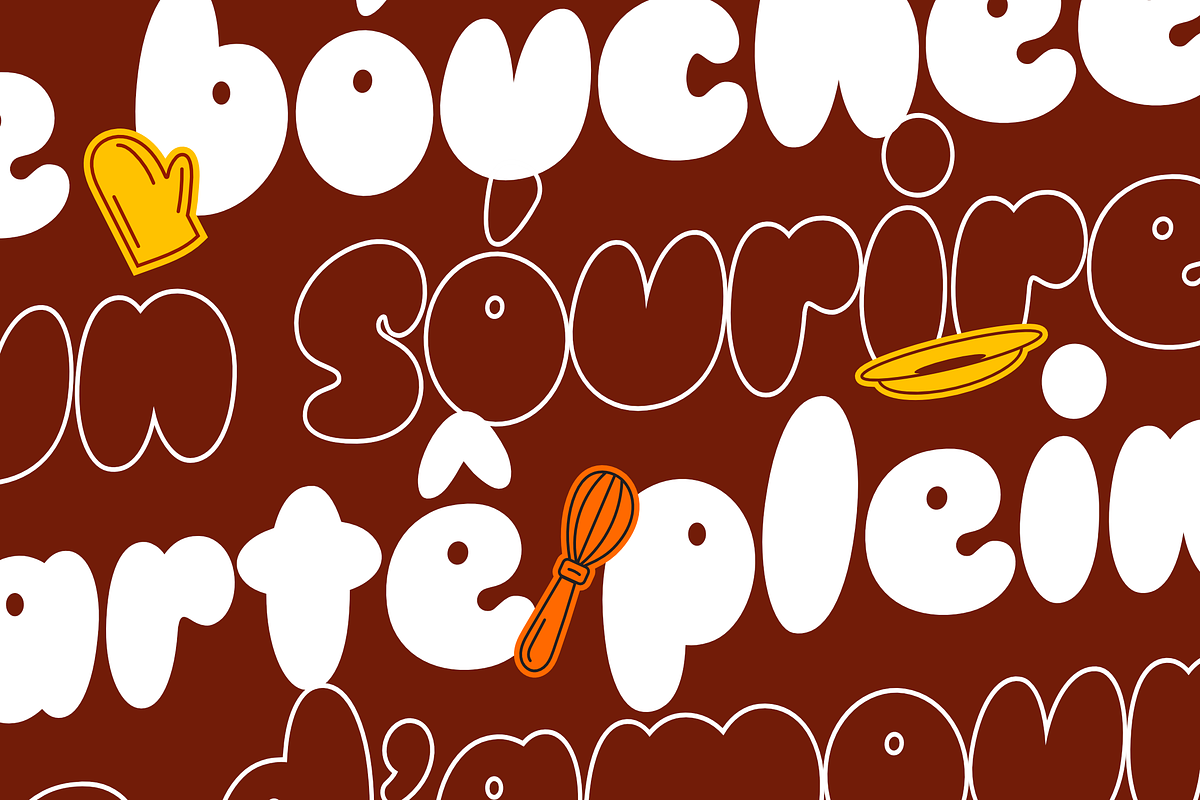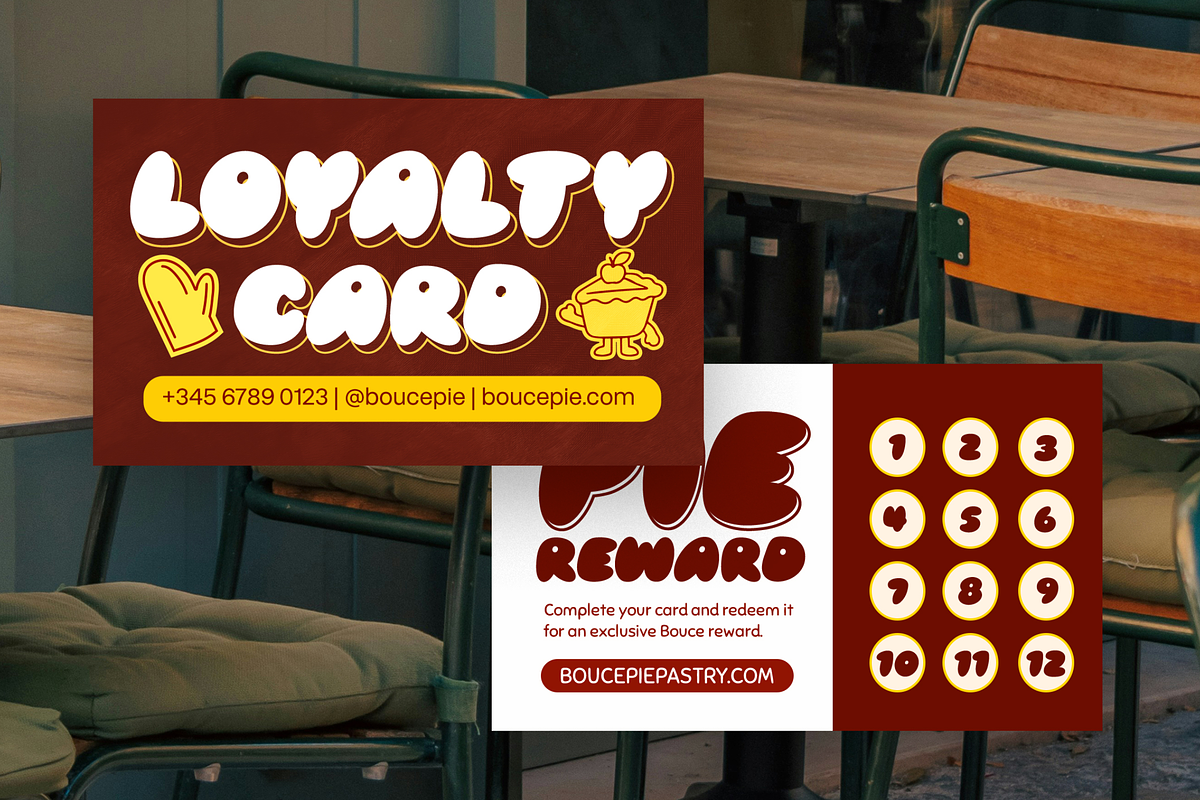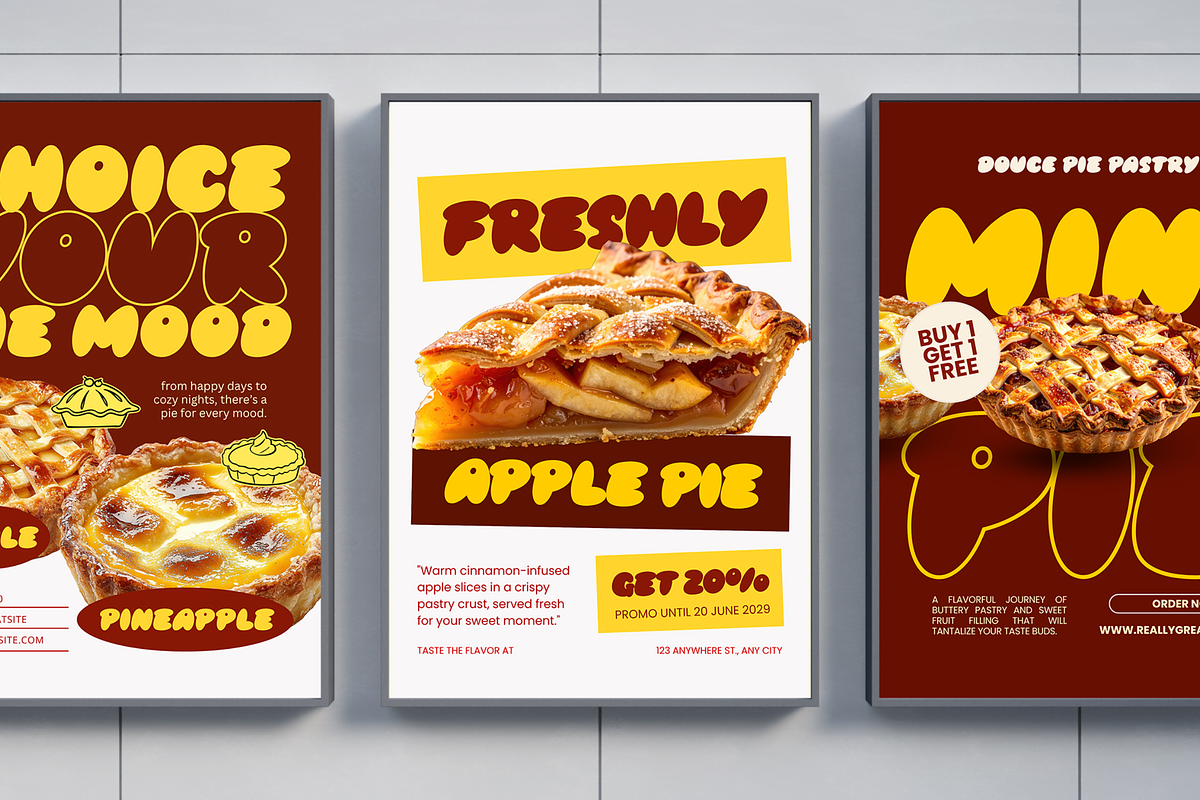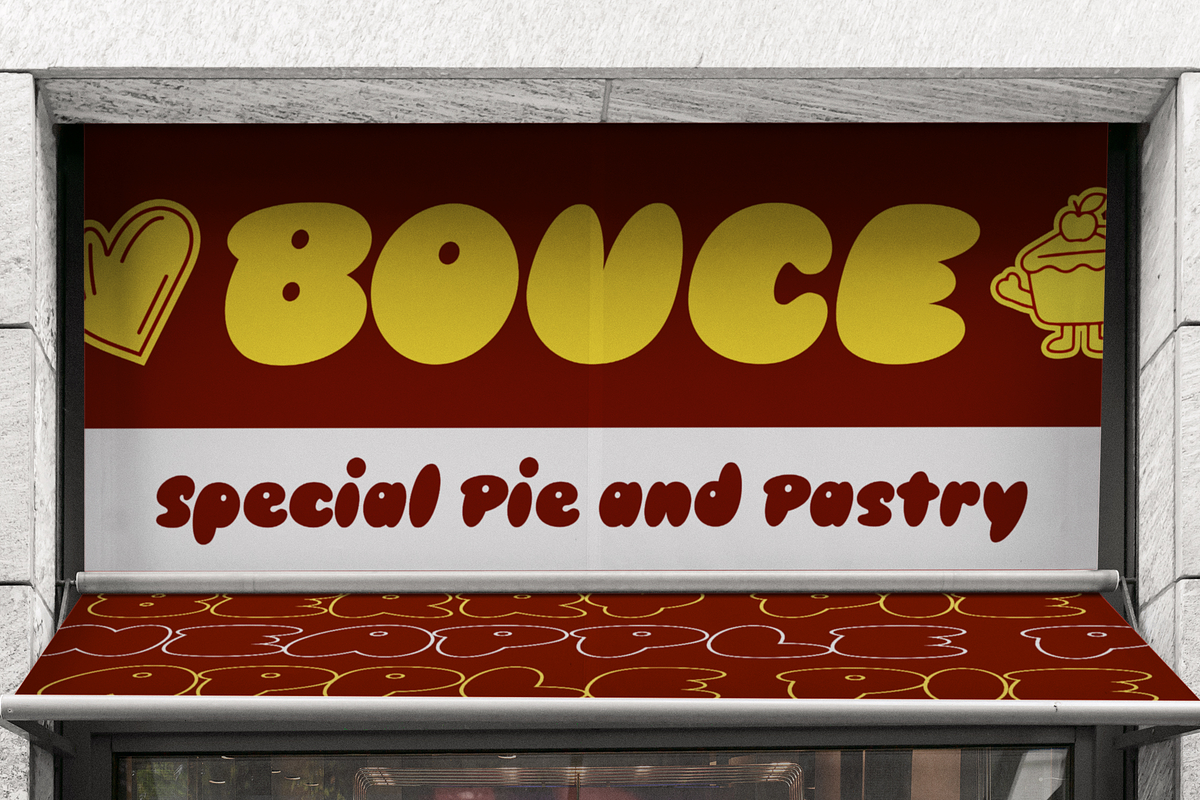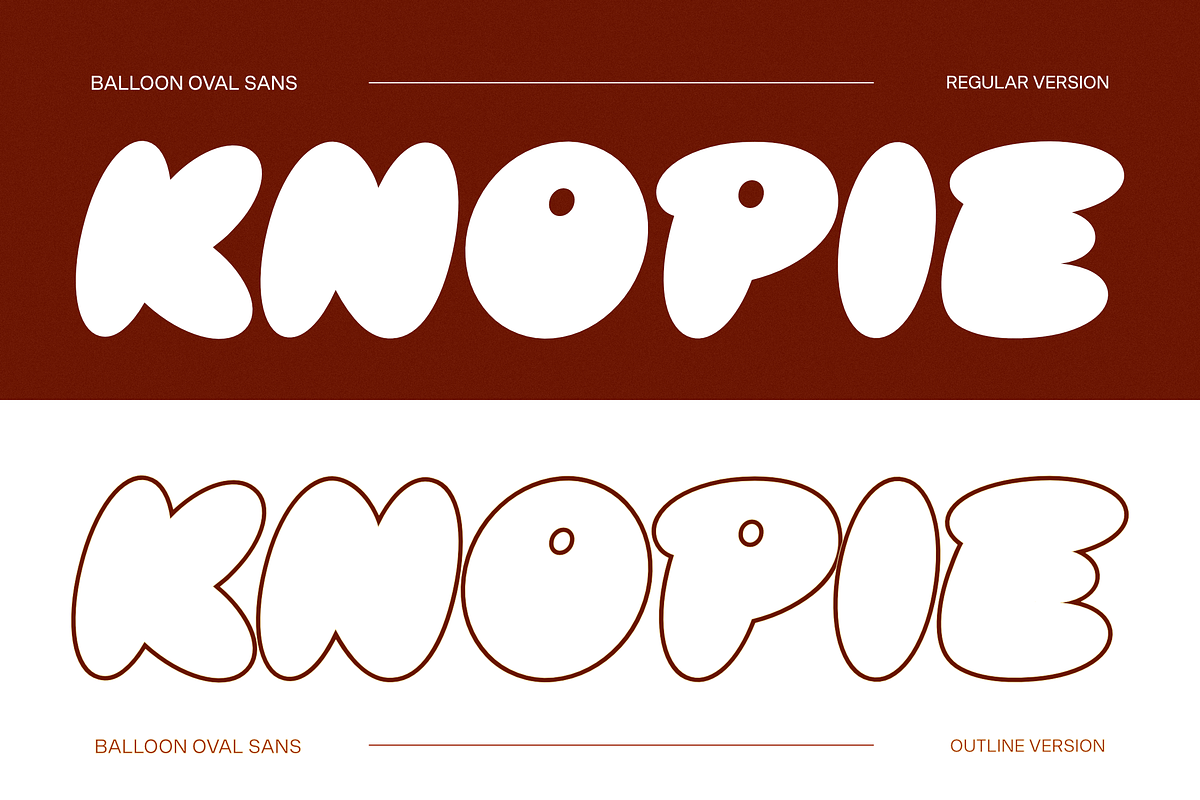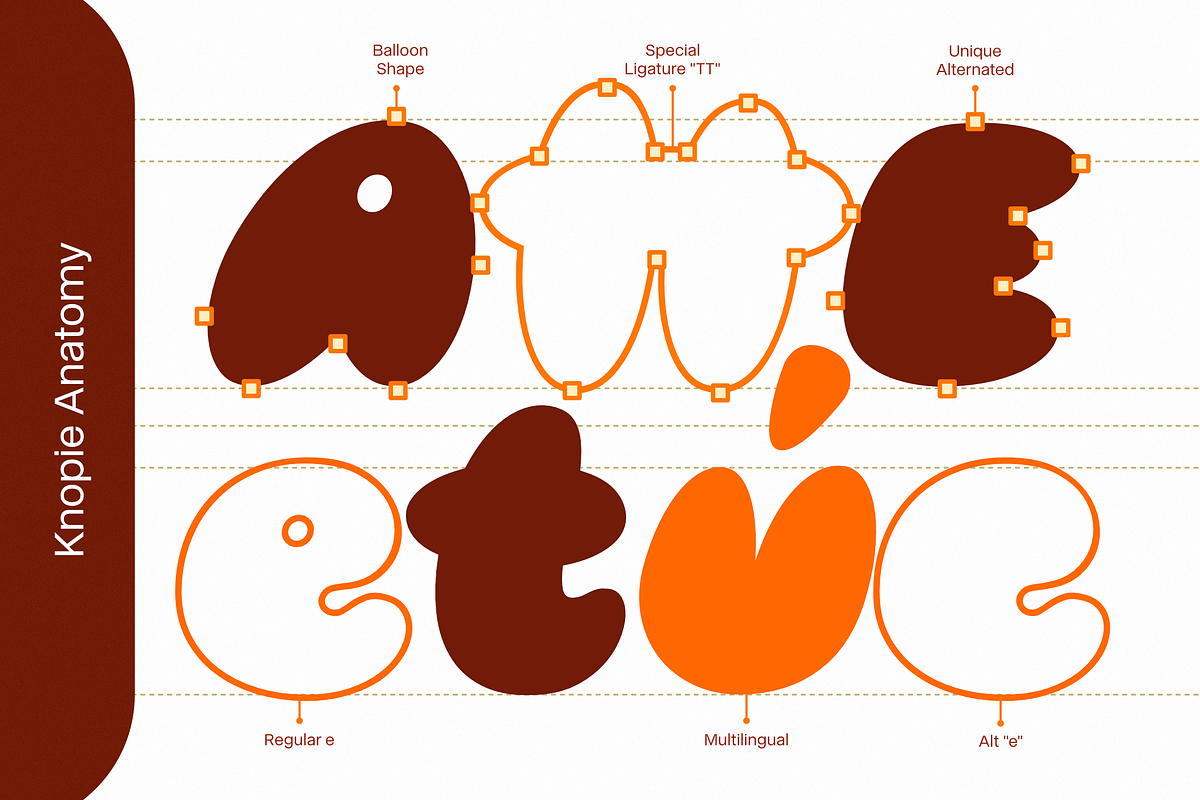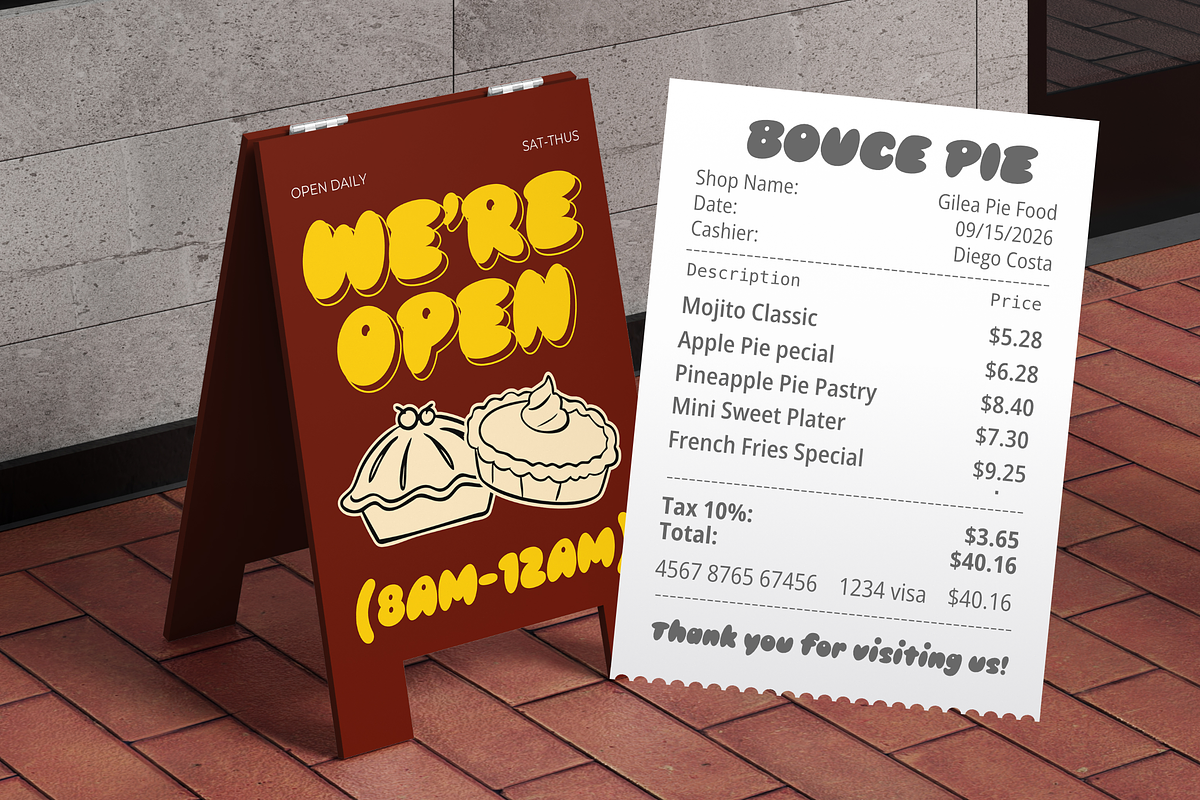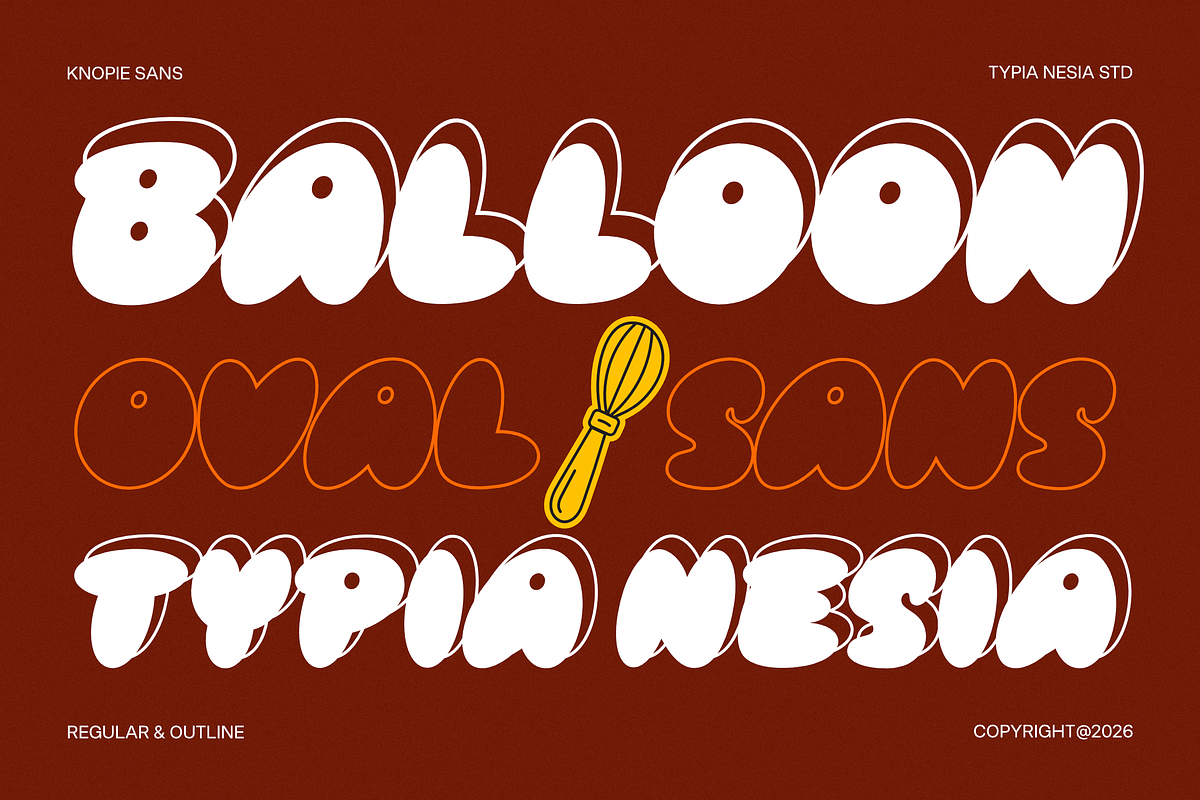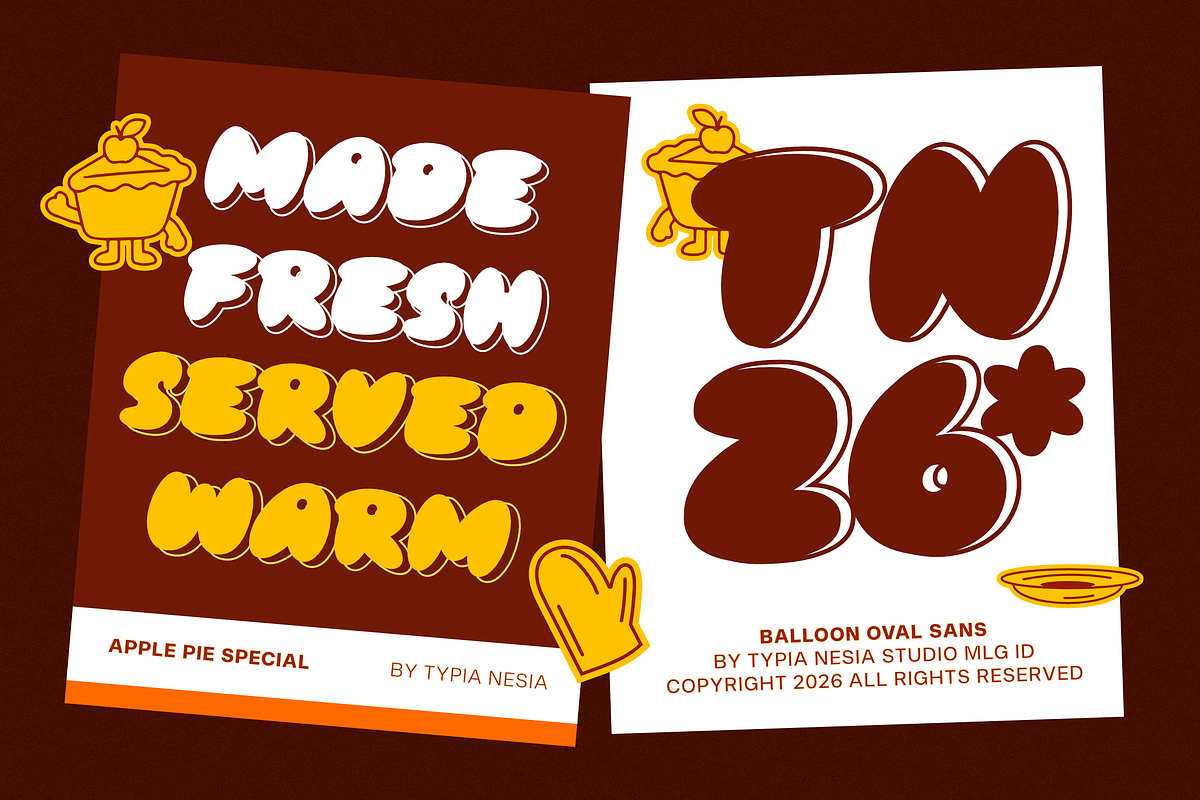
Knopie - Playful Balloon Y2K Font
Knopie is a soft, bubbly balloon oval sans serif typeface crafted specifically to give food, bakery, and children’s lifestyle brands a warm, fun, and memorable personality. Designed to add warmth and cheerful energy, it delivers a friendly visual impact that stands out across food packaging and playful branding.
Perfect for bakery packaging, snack labels, children’s products, custom stickers, and vibrant social media graphics. It features Regular and Outline versions along with multilingual support, making it versatile and easy to use across a wide range of design needs.